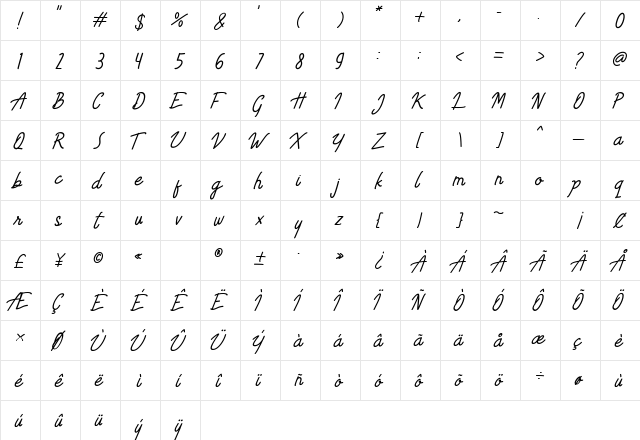
Limestone Ridge Script Press
| Style | Script Press |
| Foundry | Wellscript Studio |
| Designer | Welianto |
Design Context for Limestone Ridge Typeface
Limestone Ridge flows with the natural rhythm of handwritten lettering, making it ideal for designs that call for warmth and personal expression.
Font Pairing: Combine Limestone Ridge with a simple geometric sans for maximum contrast — the tension between flowing curves and clean structure is a classic typographic pairing.
Pro Tip: Pair Limestone Ridge with a clean sans-serif for supporting text. The contrast between fluid script and geometric structure creates an elegant typographic hierarchy.